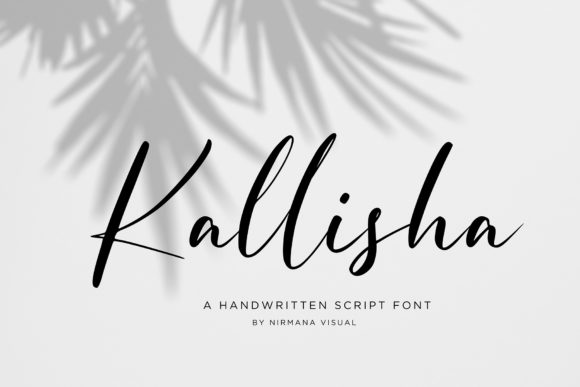
Prepare yourself to be captivated by Kallisha, a script font that will leave you spellbound with its enchanting beauty. Picture this: your Christmas ornaments adorned with the charm and elegance of Kallisha's delicately flowing letters, each stroke a testament to your impeccable taste. This handwritten font, conjured by the visionary Sigit Dwipa, is the embodiment of timeless sophistication.
Imagine the joy and admiration as your loved ones marvel at your beautifully crafted ornaments, each one a reflection of your creativity and heartfelt intentions. Kallisha's distinctive and elegant style will transform your ornaments into cherished keepsakes, treasured for years to come.
With Kallisha, the possibilities are endless. It's the perfect font to add a touch of whimsy and sophistication to your Christmas greeting cards, gift tags, or festive social media posts. Let your imagination soar as you explore the endless creative opportunities Kallisha presents. Its incredibly distinct style will make your designs stand out from the crowd, leaving a lasting impression on all who see them.
So, embrace the magic of Kallisha and embark on a creative journey that will create memories and spark joy this Christmas season and beyond. Let your creativity shine, and make your designs truly exceptional with Kallisha.